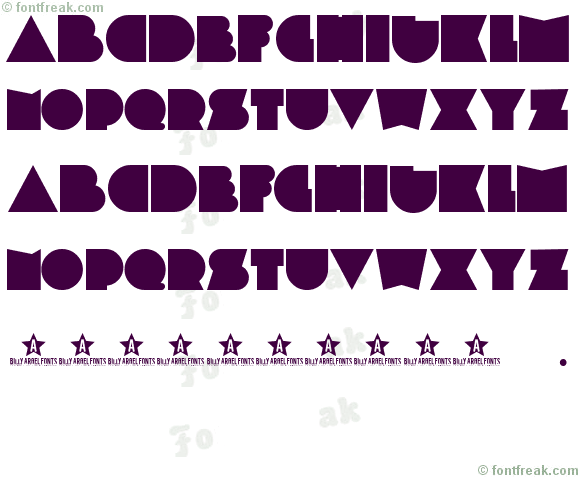
PLASTIC PILL
About PLASTIC PILL
The PLASTIC PILL font, created by Billy Argel Fonts, is a striking display typeface that embodies a modern and playful aesthetic. This decorative font features a unique, rounded design reminiscent of plastic elements, making it visually distinct and engaging. Its bold stroke weight and consistent character spacing provide clarity and legibility, while the smooth curves and soft edges add a friendly touch. The overall appearance is both contemporary and whimsical, appealing to a wide range of creative projects.
This font is particularly suited for various use cases, such as vibrant movie posters that require a catchy title font, or trendy restaurant menus where a fun and inviting vibe is essential. Additionally, PLASTIC PILL is ideal for eye-catching social media graphics, playful branding for small businesses, and even attention-grabbing flyers for events. It offers versatility that can enhance various design contexts, making it a valuable asset for graphic designers and content creators alike.
The target audience for the PLASTIC PILL font includes graphic designers looking to add a unique touch to their projects, small business owners seeking to create memorable branding, and content creators wanting to stand out in a crowded digital landscape. Its playful design makes it particularly appealing to those aiming for a bold and modern aesthetic.
What sets the PLASTIC PILL font apart is its ability to balance fun and professionalism, making it a perfect choice for projects that require a touch of creativity without sacrificing readability. With its freeware license, designers can easily incorporate this font into their work, making the PLASTIC PILL font free download an attractive option for anyone looking to elevate their designs with a unique typographic flair.